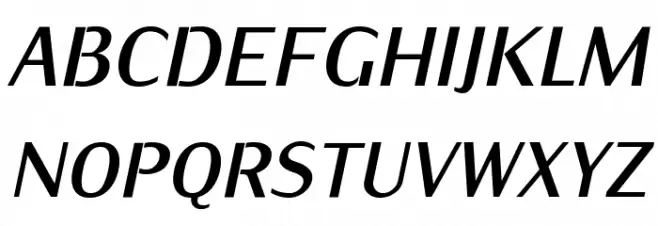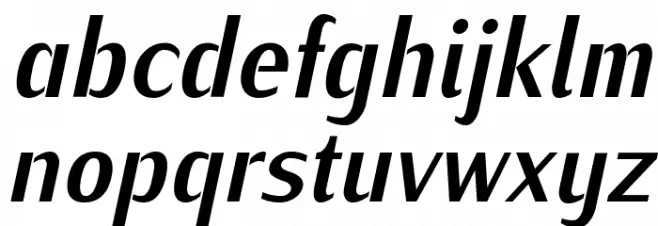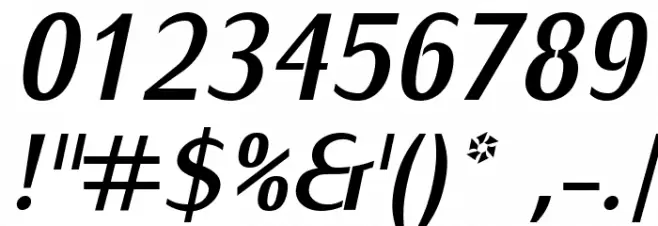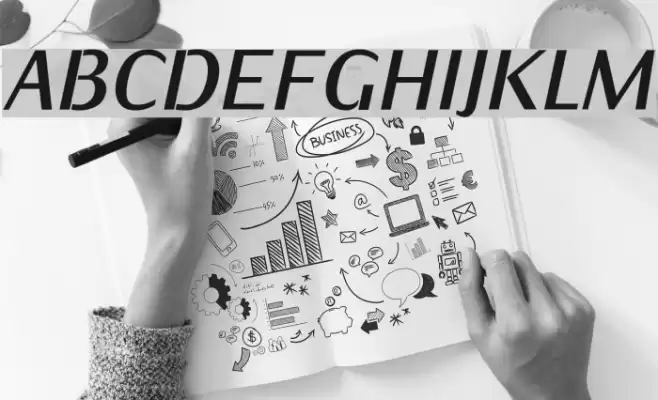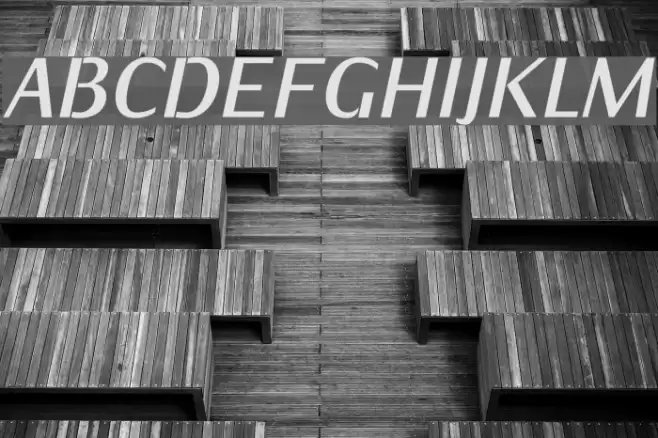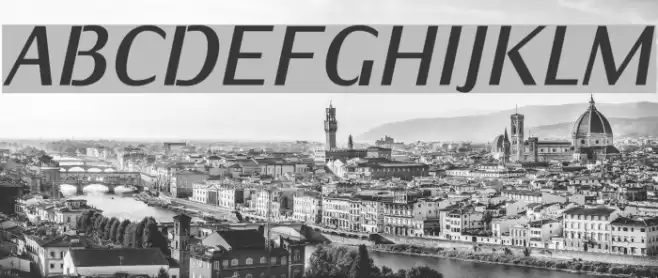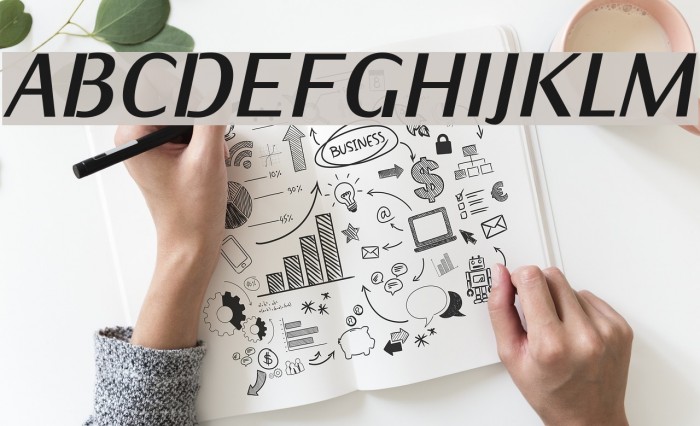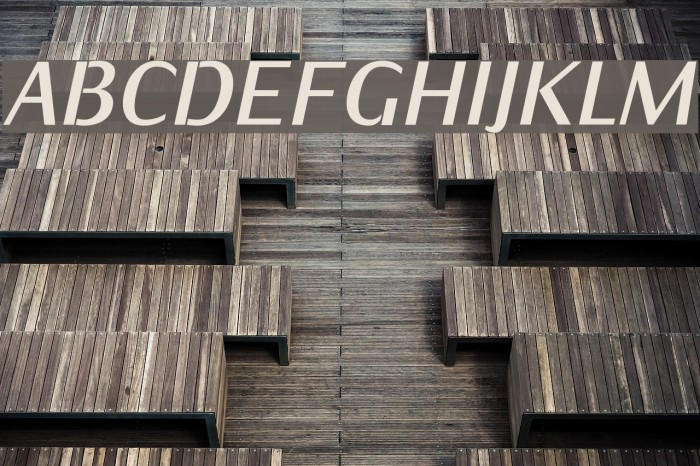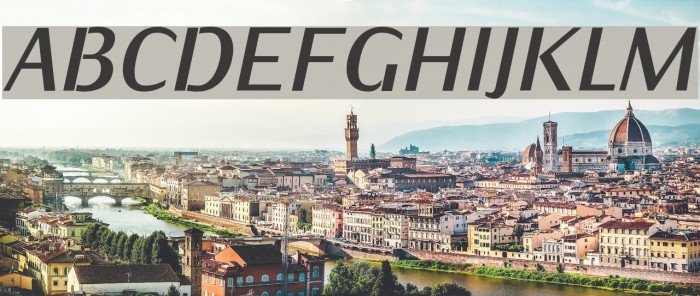
KurierCond-BoldItalic
This font features a bold and italicized style, characterized by its strong presence and dynamic slant. The uppercase letters are tall and slightly condensed, providing a sense of authority and elegance. The lowercase letters maintain a consistent flow, enhancing readability while retaining a sophisticated look. Numbers are clear and distinct, making them suitable for various applications. Special characters are well-defined, adding versatility to the font's usage. The overall design is modern with a classic touch, making it suitable for both contemporary and traditional projects.
A bold, italicized font with a modern yet classic style.
- Proposed Projects: Ideal for headlines, branding, advertising, and editorial design.
- Width: Condensed